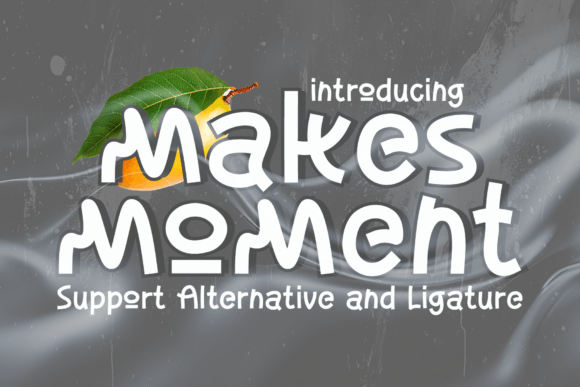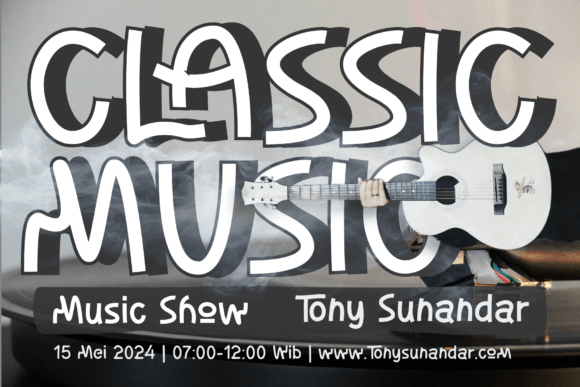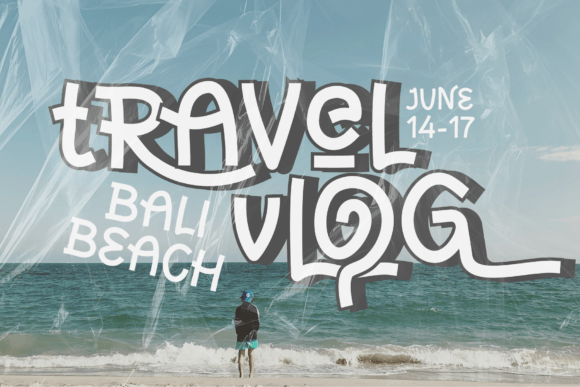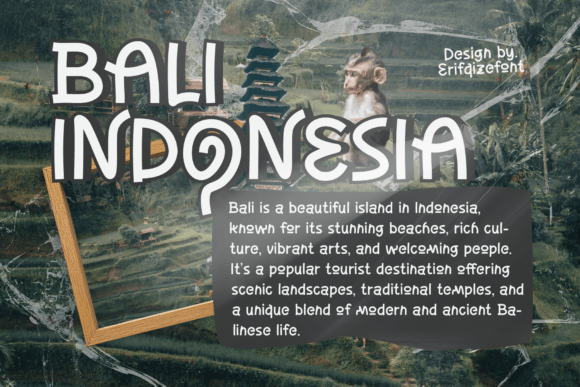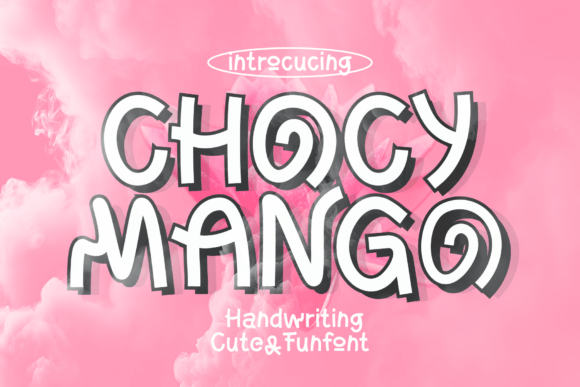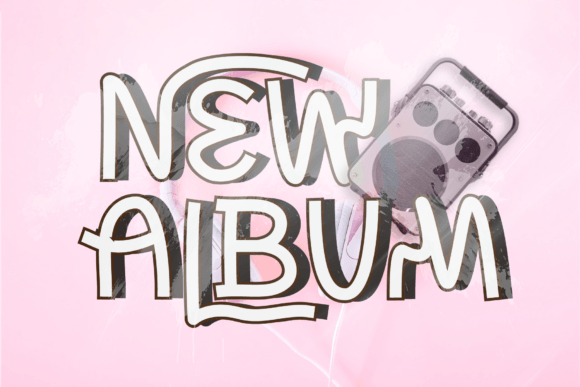
Introduction to Makes Moment Font
Have you ever sat down at your desk, surrounded by blank paper and endless possibilities, and felt an overwhelming urge to create something truly special? The spark of inspiration is a magical thing, and for designers, it’s the key to unlocking a world of innovative and captivating designs. For those moments when you need a font that captures the essence of creativity and playfulness, look no further than the Makes Moment Font.
This charming handwriting-style font is a design resource that’s sure to add a delightful and fun vibe to any project. With its bold, thick lines and unique ligatures, Makes Moment Font brings a personalized touch to your designs, making it perfect for casual and cheerful projects. Whether you’re working on a design project with a transparent background or need a font that’s easy to use, Makes Moment Font is a high-quality resource that’s free to download and accessible to a global audience.
• Unique, modern design aesthetic, ideal for designers seeking a fresh and contemporary look for their creative project.
Honest Review: Makes Moment Font
I recently stumbled upon the Makes Moment Font, and I must say, it’s been a great addition to my design resource collection. The high-quality font is perfect for my creative projects that require a touch of elegance and sophistication.
What works well about this font is its versatility ✨. It can be used for a wide range of applications, from headings to body text, and even for decorative purposes. The transparent background option allows for seamless integration with any design element, making it a great choice for designers.
• High-quality design: The font is well-designed and looks great on any screen resolution.
However, there are a few limitations ⚠️. The font may not be suitable for projects that require a bold or dramatic look, as it’s more geared towards elegant and sophisticated designs. Additionally, the font may not be compatible with older software or operating systems.
Overall, I’m impressed with the Makes Moment Font and would highly recommend it to designers looking for a high-quality, versatile font for their creative projects.
Use the Makes Moment Font in a high-quality design project, such as a logo or branding material. You can also use it to add a creative touch to your presentations or documents.
The Makes Moment Font is perfect for designers working on creative projects, such as logos, branding materials, presentations, and documents. It’s also great for bloggers and writers who want to add a touch of elegance to their content.